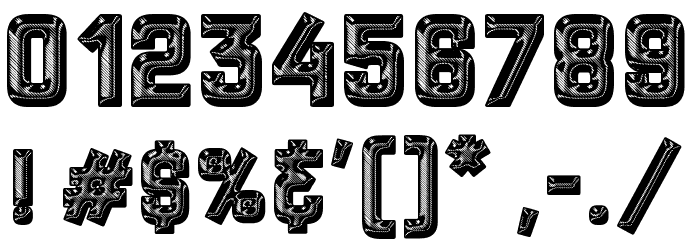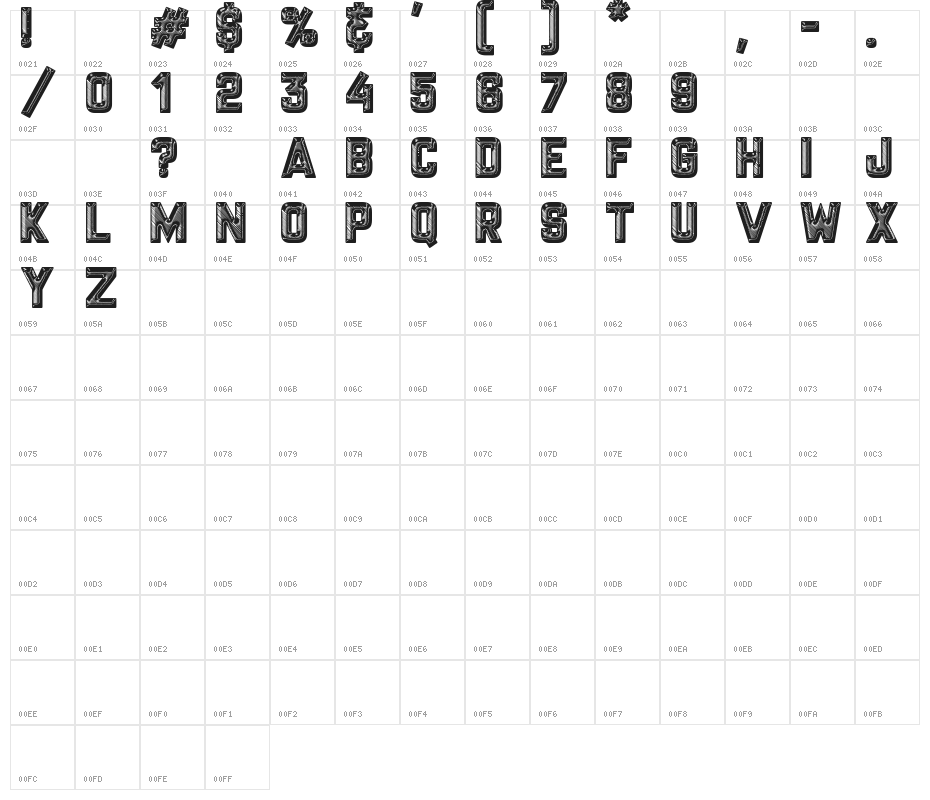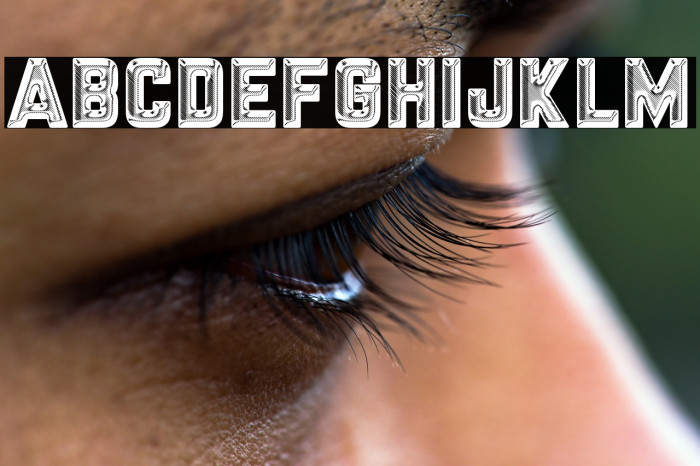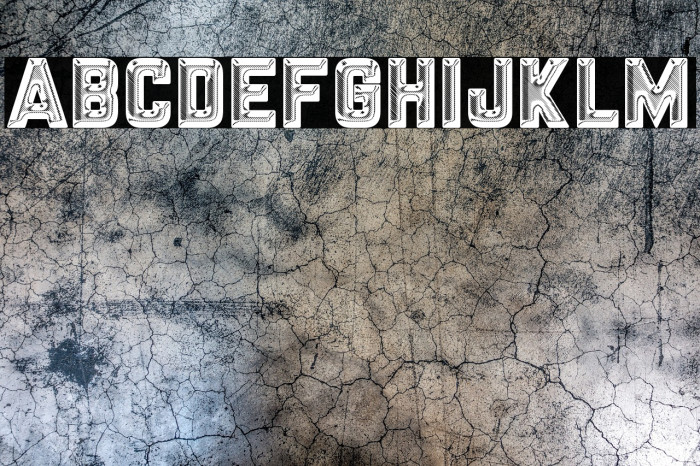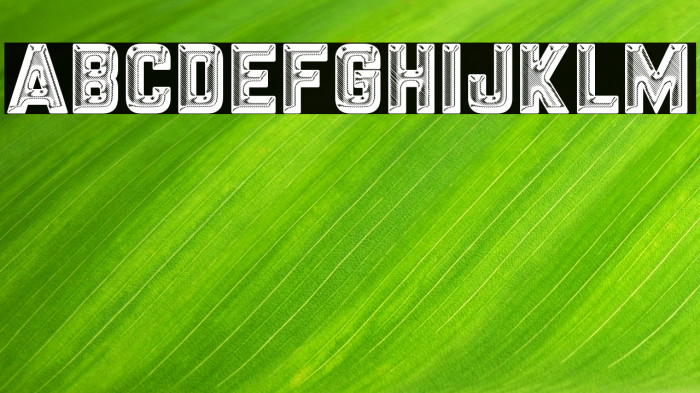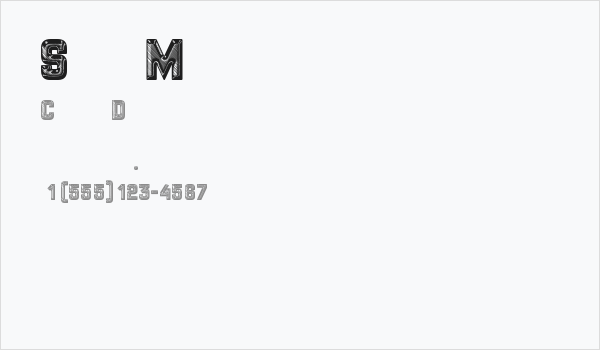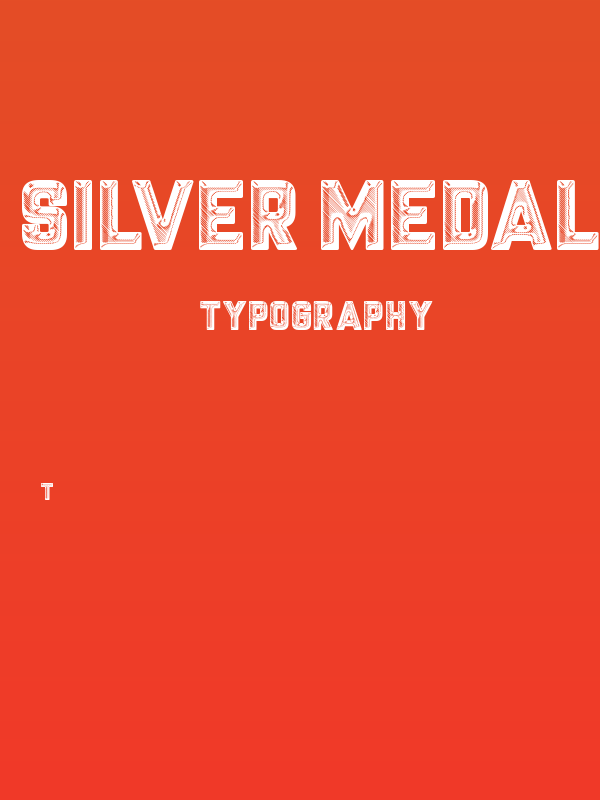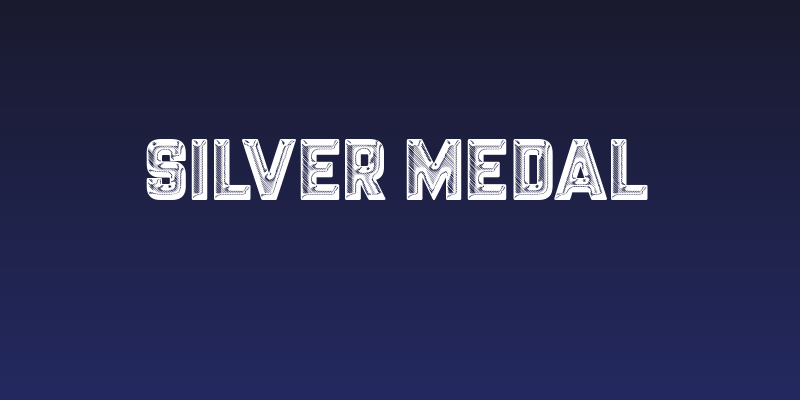
Silver Medal Font
Silver Medal Description
This font features a bold, three-dimensional appearance with a metallic sheen, reminiscent of engraved or embossed lettering. The characters are uppercase and numerals, each with a distinct shadow effect that gives them depth and a sense of weight. The design incorporates diagonal lines within each character, enhancing the texture and providing a dynamic, industrial feel. The font is highly decorative, making it suitable for impactful visual statements. Its robust and sturdy look is ideal for projects that require a strong, eye-catching typeface.
| Overall Style | Modern, Industrial |
| Proposed Projects | Ideal for use in posters, logos, branding, and any design requiring a strong, impactful typeface. |